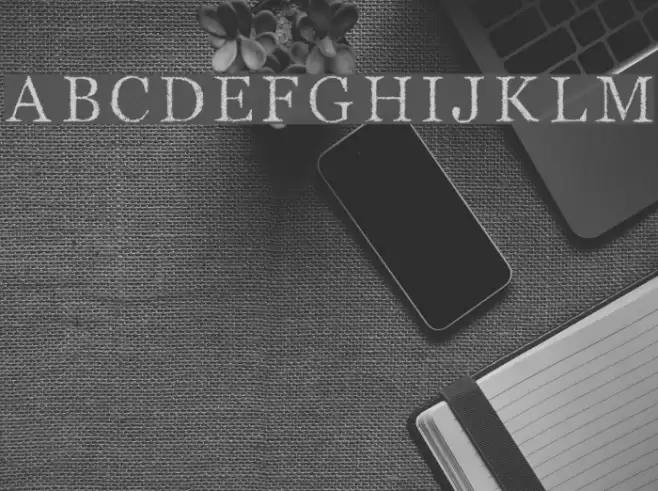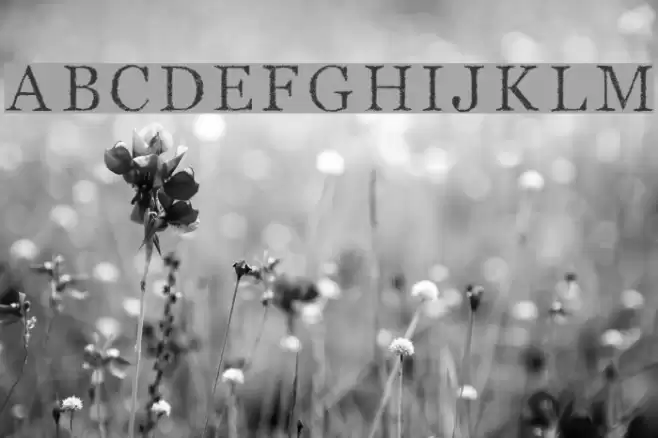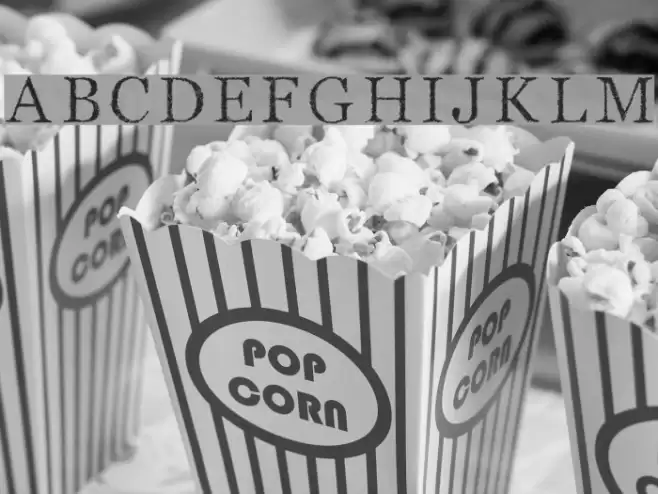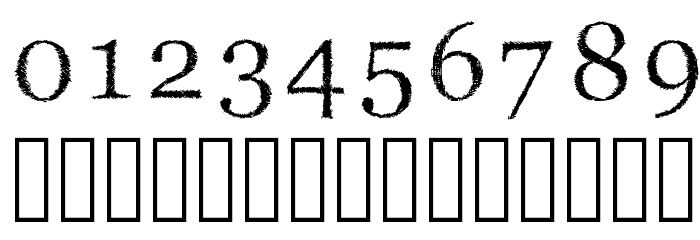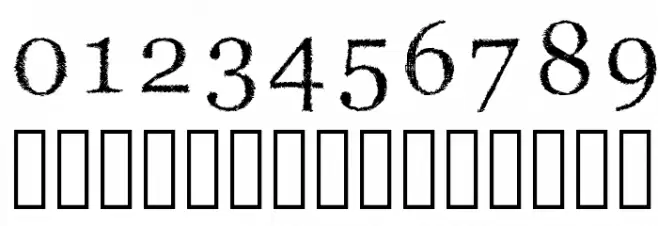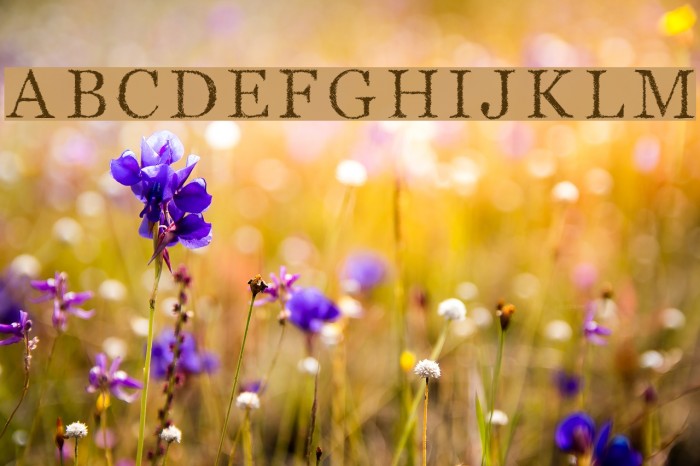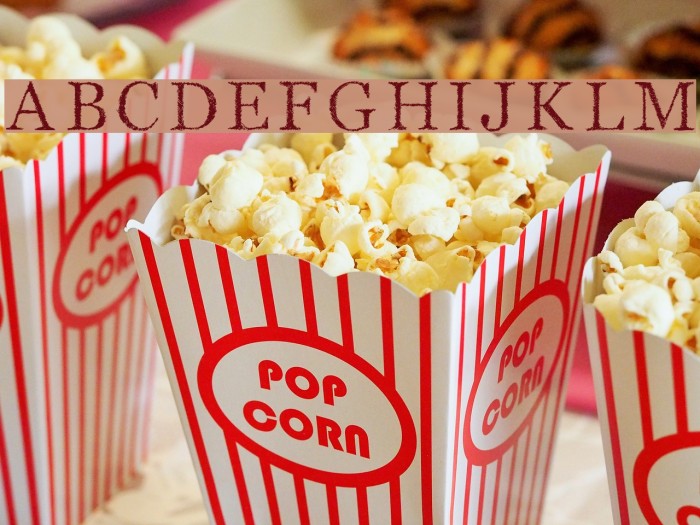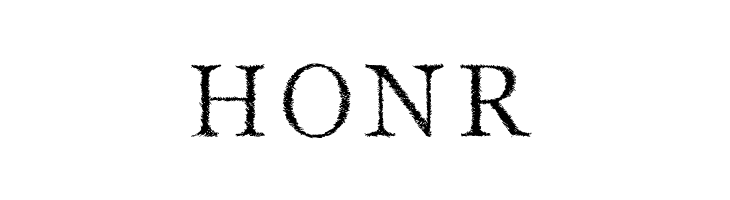
PWVeryScratchy Font
PWVeryScratchy Description
This font features a distinctive scratchy texture that gives it a rugged and edgy appearance. The uppercase letters are bold and commanding, with a serif style that adds a touch of classic elegance. The numbers maintain the same scratchy texture, providing a cohesive look across all characters. The font's unique texture makes it stand out, offering a hand-drawn, artistic feel that is both modern and vintage. It's ideal for projects that require a bold statement, such as posters, album covers, or branding materials that aim to convey a sense of creativity and individuality.
A scratchy, textured serif font with a bold, artistic flair from Uncategorized fonts.
- Proposed Projects: Ideal for posters, album covers, branding, and creative projects requiring a bold statement.
- Overall Style: Artistic, Vintage